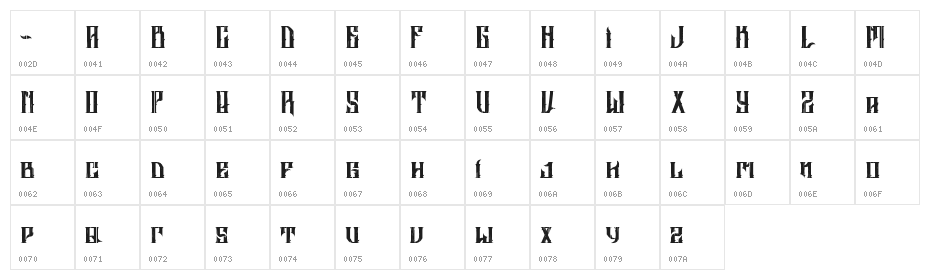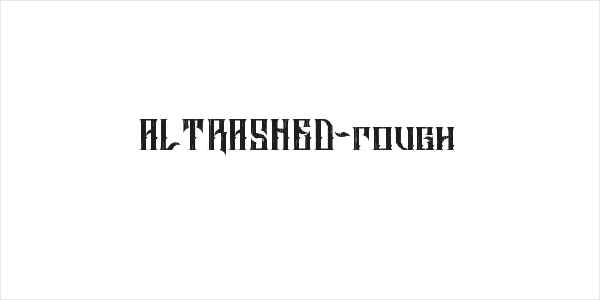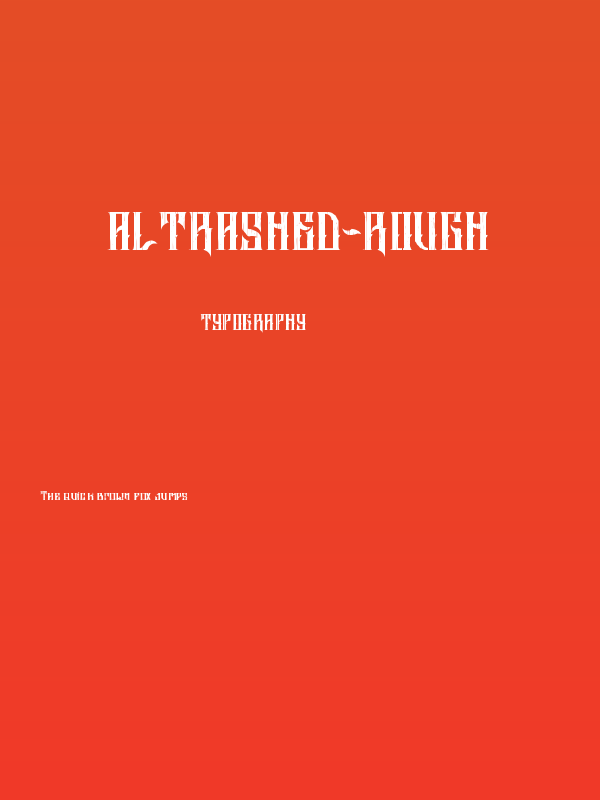
ALTRASHED-rough Font
ALTRASHED-rough Description
This font features a bold, distressed style with a rough, textured appearance that gives it a grunge or urban feel. The characters are heavily stylized with jagged edges and irregular shapes, creating a sense of chaos and movement. The uppercase letters are particularly striking, with their sharp angles and bold presence. The lowercase letters maintain the same rugged aesthetic, ensuring consistency throughout the typeface. This font is designed to stand out and make a statement, perfect for projects that require a strong visual impact.
| Overall Style | Grunge, Urban, Edgy |
| Proposed Projects | Ideal for album covers, posters, streetwear branding, and edgy graphic design projects. |